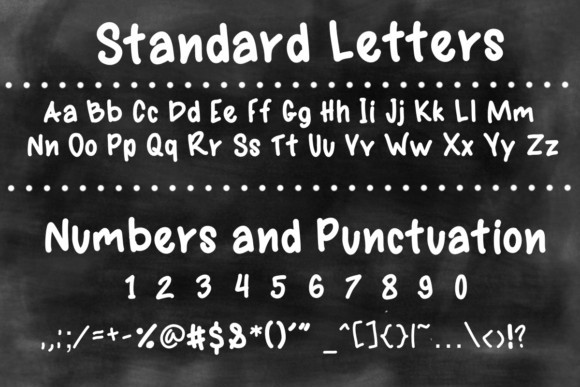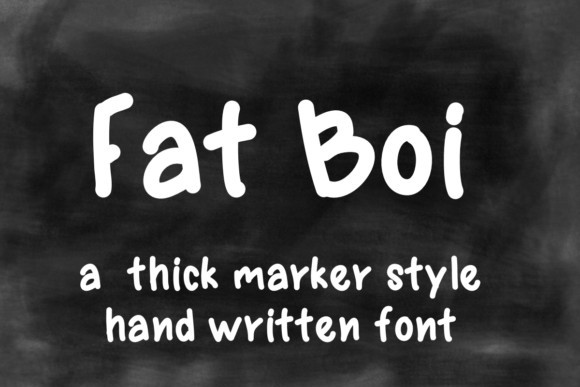
Fat Boi Font
Fat Boi is a thick marker style font that combines a bold style with great legibility. Use it to add a chunky feel to any design project.